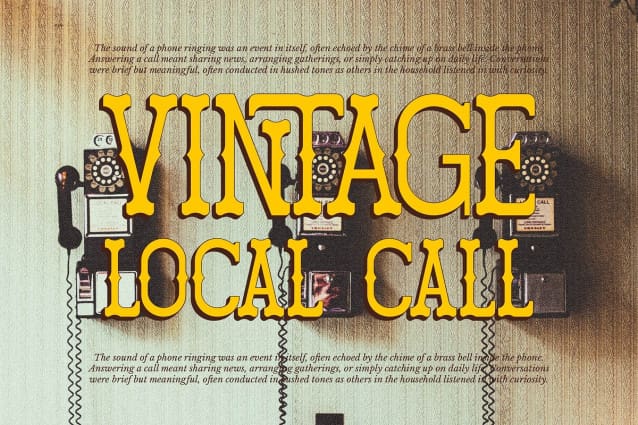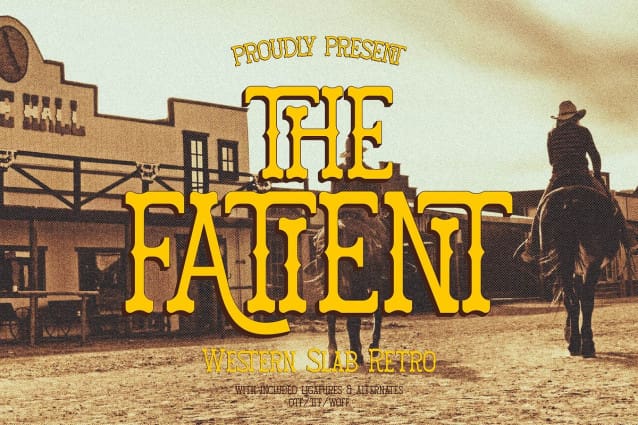
Fatient Western Font
Fatient Western Slab Retro, from Denustudios, suitable for any projects such as: logos, branding projects, homeware designs, product packaging, mugs, quotes, posters, shopping bags, t-shirts, book covers, name card, invitation cards, greeting cards, label, photography, watermark, special events, and all your other lovely projects that need a Western Slab Retro taste.